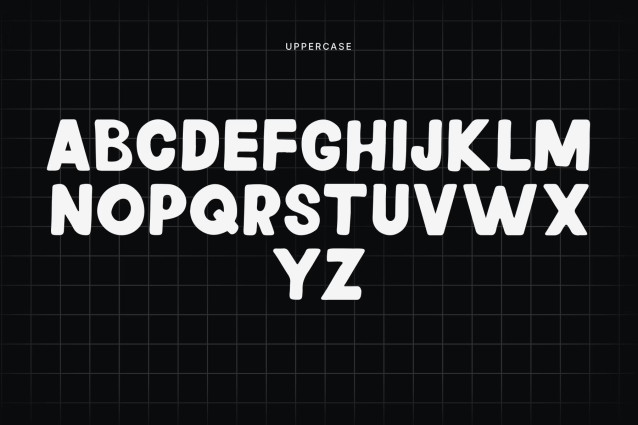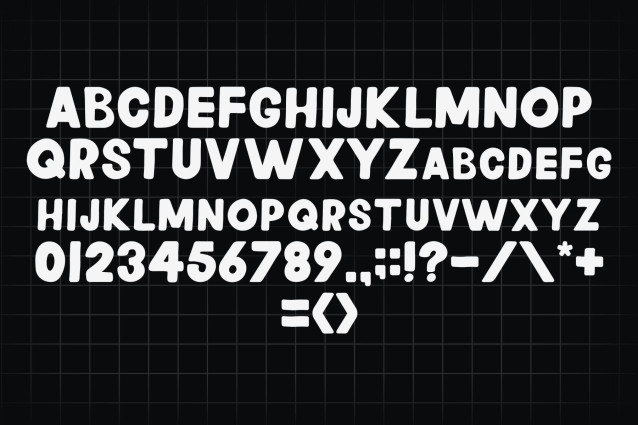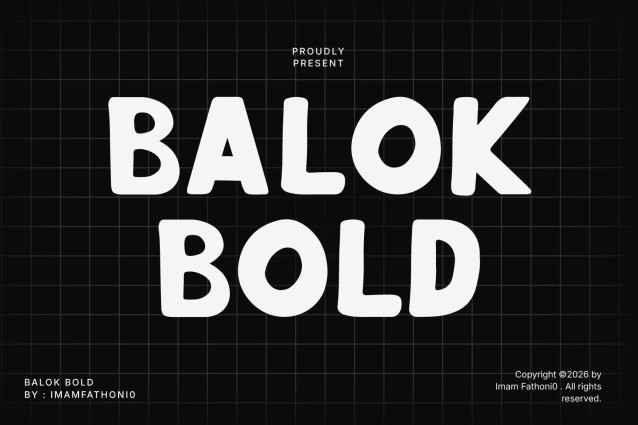
Balok Bold is a heavyweight display font with thick, chunky strokes that command attention at a glance. Its bold, wide structure gives designs a confident, impactful presence, making it a strong choice for titles and branding that need to stand out fast.
Perfect For
Restaurant and club menu headers, event flyers, t-shirt and apparel designs, merchandise packaging, urban streetwear branding, bold logo design, poster and banner headlines, cafe and bar signage, retail packaging and labels, social media promotional graphics.